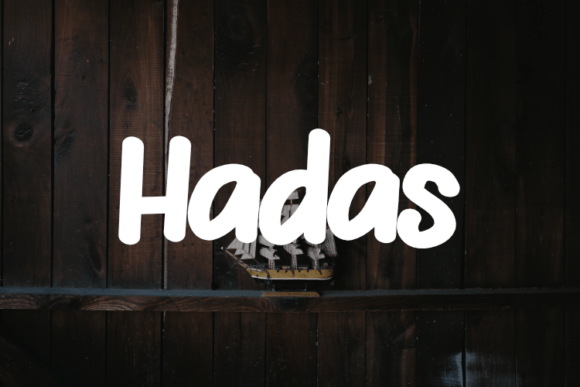
Introduction to Hadas Font
Introducing Hadas, a versatile font meticulously crafted for fashion design applications – ideal for enhancing the allure of clothing items, t-shirts and a plethora of other products.
Effortlessly compatible with every design platform and inclusive of OTF and TTF files, Hadas encapsulates a seamless blend of style and functionality designed to enrich every creative endeavor .
Key Features of Hadas Font
Hadas Font offers exceptional quality and versatility, making it a valuable addition to your design toolkit. Whether you’re creating for personal projects or commercial use, Hadas Font delivers professional results.